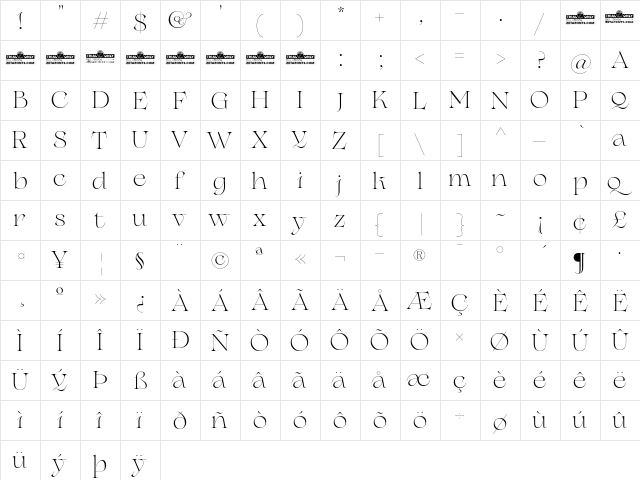
Erotique Trial Regular
| Foundry | Zetafonts |
| Designer | Cosimo Lorenzo Pancini, Mariachiara Fantini, Solenn Bordeaux, Andrea Tartarelli |
Design Context for Erotique Trial Typeface
Erotique Trial takes a measured approach to typography — its balanced proportions and neutral character make it a reliable workhorse for both digital and print work.